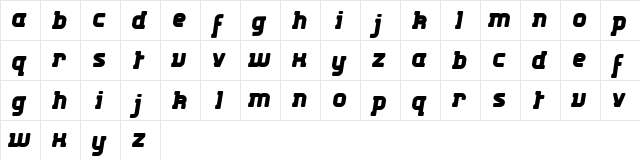
Kabys Kabys
| Foundry | Beno?t Sj?holm |
| Designer | Beno?t Sj?holm |
Design Context for Kabys Typeface
Kabys takes a measured approach to typography — its balanced proportions and neutral character make it a reliable workhorse for both digital and print work.